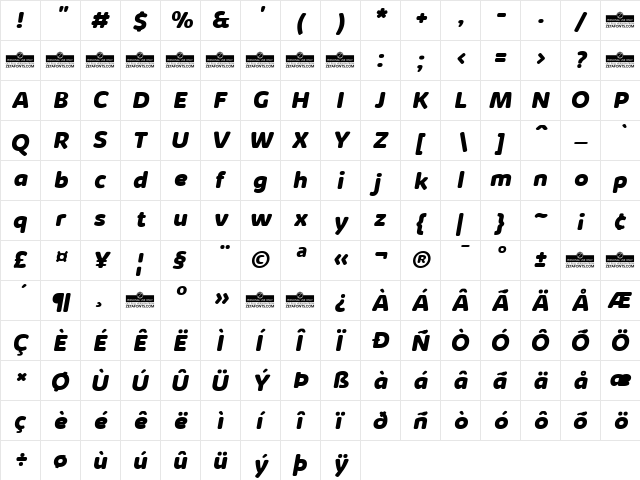
Kabrio Soft ExtraBold Italic
| Foundry | studio kmzero |
| Designer | Corimo Lorenzo Pancini |
Design Context for Kabrio Soft Typeface
Kabrio Soft is a composed and adaptable typeface that performs quietly and consistently across a wide range of design contexts. The slanted form adds forward momentum and visual energy. The heavy weight commands attention and anchors typographic hierarchies.